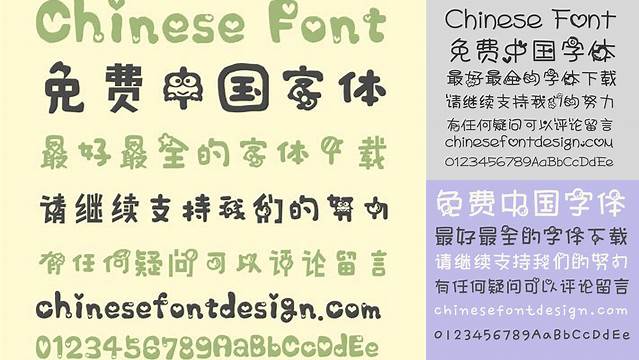
Cute Chinese Fonts For Instagram: Copy & Paste!
Hey guys! Want to spice up your Instagram with some super cute Chinese fonts? You've come to the right place! In this article, we're diving deep into the world of unique and adorable Chinese fonts that you can easily copy and paste to make your Insta posts stand out. We'll cover everything from where to find these fonts to how to use them effectively, and even some tips for creating the most eye-catching content. So, let's get started and turn your Instagram game up a notch!
What are Cute Chinese Fonts?
Cute Chinese fonts are stylized versions of Chinese characters (Hanzi) designed to be visually appealing and often incorporate playful or whimsical elements. They can range from rounded and bubbly designs to fonts that resemble hand-drawn calligraphy, making them perfect for adding a touch of personality to your Instagram posts. These fonts aren't just about aesthetics; they also bring a bit of cultural flair, making your content more engaging and unique. You might find fonts with added hearts, stars, or other decorative elements, truly setting them apart from standard text. When choosing a cute Chinese font, consider the overall theme of your Instagram profile and select fonts that complement your existing aesthetic. Using these fonts can help you create a cohesive and visually appealing brand identity that attracts more followers and boosts engagement. Whether you're posting about fashion, food, travel, or just your daily life, cute Chinese fonts can add that extra oomph to make your content pop!
Why Use Chinese Fonts on Instagram?
Using Chinese fonts on Instagram can seriously elevate your content. First off, it's a fantastic way to stand out from the crowd. With everyone using the same standard fonts, adding a touch of Chinese calligraphy or a cute Chinese font immediately catches the eye. It also adds an element of mystique and cultural richness, making your posts more intriguing. Plus, if you're targeting a specific audience that appreciates or is interested in Chinese culture, using these fonts can help you connect with them on a deeper level. Think about it: a beautifully crafted quote in a cute Chinese font can resonate much more than the same quote in Arial or Times New Roman. Furthermore, using Chinese fonts shows that you're creative and willing to experiment, which can boost your credibility and make your profile more memorable. Ultimately, incorporating Chinese fonts into your Instagram strategy can help you build a unique brand identity, attract a wider audience, and create content that truly stands out in the crowded digital space. It’s a win-win!
Where to Find Cute Chinese Fonts for Copy and Paste
Finding cute Chinese fonts for copy and paste is easier than you might think! There are several online resources where you can discover a wide range of stylish and adorable fonts. One of the best places to start is websites that offer font generators. These sites allow you to type in your text, choose from a variety of Chinese fonts, and then simply copy and paste the generated text into your Instagram post. Some popular font generator websites include LingoJam and FontGet. Additionally, you can explore online design communities and forums where users often share their favorite fonts and resources. Websites like Pinterest and Behance can also be great sources of inspiration, leading you to unique and cute Chinese fonts that you might not find elsewhere. Don't forget to check out social media platforms like WeChat and Weibo, where you might discover emerging Chinese fonts that are trending. Remember to always ensure that the fonts you use are free for commercial use if you plan to use them for business purposes. With a little bit of searching, you'll have a collection of cute Chinese fonts ready to make your Instagram posts shine!
Tips for Using Chinese Fonts Effectively
Using cute Chinese fonts effectively on Instagram requires a bit of strategy to ensure your content looks polished and professional. First and foremost, less is often more. Avoid overcrowding your posts with too much stylized text, as it can become overwhelming and difficult to read. Instead, use Chinese fonts sparingly to highlight key words or phrases. Consider the overall aesthetic of your Instagram profile and choose fonts that complement your existing style. For example, if you have a minimalist theme, opt for simple and elegant Chinese fonts. If your profile is more playful and vibrant, choose fonts with bolder and more whimsical designs. Pay attention to the readability of the font. While some Chinese fonts may look visually appealing, they might not be easy to read, especially on smaller screens. Always test your text on different devices to ensure it displays correctly. Also, be mindful of cultural context. Using Chinese fonts should be done respectfully and with an understanding of their cultural significance. Avoid using fonts in a way that could be misconstrued or offensive. By following these tips, you can use cute Chinese fonts to enhance your Instagram content and create a visually stunning and engaging profile.
Combining Chinese Fonts with Other Design Elements
To really make your Instagram posts pop, try combining cute Chinese fonts with other design elements. Think about adding graphics, stickers, and emojis that complement the font's style. For instance, if you're using a bubbly, rounded Chinese font, pair it with pastel-colored backgrounds and playful emojis. If you've chosen a more traditional calligraphy-style font, consider using vintage-inspired filters and elegant borders. Experiment with different color palettes to create visual harmony. Soft, muted tones can enhance the sophistication of your posts, while bright, bold colors can make your content more eye-catching. Don't be afraid to play around with layering text and images. You can place Chinese fonts over photos or create text-based graphics with transparent backgrounds. Just make sure the text remains legible and doesn't get lost in the background. Another great idea is to use whitespace effectively. Leaving some empty space around your text can make it stand out and give your posts a clean, uncluttered look. By thoughtfully combining cute Chinese fonts with other design elements, you can create visually stunning Instagram content that captures attention and reflects your unique style. It's all about finding the perfect balance and letting your creativity shine!
Common Mistakes to Avoid When Using Chinese Fonts
Using cute Chinese fonts on Instagram can be a fun way to add personality to your posts, but there are a few common mistakes you should avoid. First, don't overdo it! Using too many different fonts in a single post can make your content look cluttered and unprofessional. Stick to one or two Chinese fonts at most, and make sure they complement each other. Another mistake is choosing fonts that are difficult to read. While some Chinese fonts may look visually appealing, they might not be legible, especially on smaller screens. Always prioritize readability over aesthetics. Also, avoid using Chinese fonts that clash with your overall brand aesthetic. Your fonts should align with your brand's personality and style. If your brand is minimalist and modern, opt for clean and simple Chinese fonts. If your brand is more playful and whimsical, you can choose bolder and more decorative fonts. Be mindful of cultural appropriation. Using Chinese fonts without understanding their cultural significance can be offensive. Do your research and use the fonts respectfully. Finally, always test your posts on different devices to ensure the fonts display correctly. By avoiding these common mistakes, you can use cute Chinese fonts effectively and enhance your Instagram content without detracting from your brand's message.
Examples of Instagram Accounts Using Chinese Fonts Well
Looking for inspiration on how to use cute Chinese fonts effectively? Check out some Instagram accounts that are nailing it! One example is @ChineseCalligraphyArt, which showcases stunning Chinese calligraphy pieces with elegant and readable fonts. They use fonts that highlight the beauty of the artwork without overshadowing it. Another great account is @TrendyChineseFashion, which incorporates cute Chinese fonts into their captions and stories to add a touch of cultural flair. They often pair the fonts with relevant emojis and graphics, creating visually appealing content. @ChineseFoodAdventures is another account worth following. They use playful and vibrant Chinese fonts to showcase delicious food and create a fun and engaging atmosphere. These accounts demonstrate how to use Chinese fonts to enhance your content and connect with your audience. Pay attention to how they balance the fonts with other design elements and how they use the fonts to convey their brand's message. By studying these examples, you can learn how to incorporate cute Chinese fonts into your own Instagram strategy and create a unique and captivating profile. Remember, it's all about finding the right fonts and using them in a way that complements your content and resonates with your audience!
The Psychology Behind Font Choices
The fonts you choose can have a significant impact on how your audience perceives your message. Different fonts evoke different emotions and associations. For instance, elegant and serif fonts often convey a sense of sophistication and tradition, while sans-serif fonts tend to feel more modern and approachable. When it comes to cute Chinese fonts, the psychology behind font choices is just as important. Rounded and bubbly fonts can create a sense of playfulness and warmth, while more angular and stylized fonts might evoke feelings of edginess or creativity. Consider the emotions you want to elicit in your audience when selecting a font. If you want to create a sense of trust and reliability, opt for a more classic and readable font. If you want to stand out and grab attention, choose a bolder and more unique font. Think about your target audience and what types of fonts they are likely to respond to. Younger audiences might be more receptive to trendy and experimental fonts, while older audiences might prefer more traditional and conservative fonts. By understanding the psychology behind font choices, you can use cute Chinese fonts strategically to enhance your message and connect with your audience on a deeper level.
The Cultural Significance of Chinese Calligraphy
Chinese calligraphy is more than just writing; it's an art form with deep cultural significance. It's been practiced for thousands of years and is considered one of the highest forms of Chinese art. Calligraphy is closely tied to Chinese philosophy, literature, and history. Each stroke and character carries meaning and reflects the calligrapher's personality and emotions. The tools used in calligraphy, such as the brush, ink, and paper, are also highly valued and are often passed down through generations. When using cute Chinese fonts, it's important to be mindful of their cultural context. Avoid using fonts in a way that could be disrespectful or offensive. Do your research and learn about the history and meaning behind the fonts you choose. Consider incorporating elements of traditional calligraphy into your designs. You can add brushstroke effects or use fonts that resemble hand-drawn calligraphy. This can add a touch of authenticity and elegance to your Instagram content. By understanding the cultural significance of Chinese calligraphy, you can use cute Chinese fonts in a way that is both stylish and respectful.
How Fonts Impact Brand Identity
Fonts play a crucial role in shaping your brand identity. They are a visual representation of your brand's personality and values. The fonts you choose can convey a sense of professionalism, creativity, or playfulness. When it comes to cute Chinese fonts, they can add a unique and memorable element to your brand. Consider how you want your brand to be perceived. Do you want to be seen as modern and innovative, or traditional and sophisticated? Choose Chinese fonts that align with your brand's overall style and message. Use fonts consistently across all your marketing materials, including your Instagram profile, website, and business cards. This will help create a cohesive and recognizable brand identity. Pay attention to the readability of your fonts. While some Chinese fonts may look visually appealing, they might not be easy to read, especially on smaller screens. Always prioritize readability over aesthetics. Test your fonts on different devices and platforms to ensure they display correctly. By carefully selecting and using cute Chinese fonts, you can create a strong and memorable brand identity that resonates with your target audience.
Making Text Stand Out with Different Styles
Want to make your Instagram text pop? Experiment with different styles to capture attention and emphasize your message. Use bold text to highlight important words or phrases. This is a great way to draw the eye and make key points stand out. Italic text can add a touch of elegance or emphasis. Use it sparingly to avoid overdoing it. Consider using ALL CAPS to create a sense of urgency or excitement. However, be careful not to overuse it, as it can come across as shouting. Experiment with different font sizes to create visual hierarchy. Larger fonts can be used for headlines, while smaller fonts can be used for body text. When using cute Chinese fonts, try combining them with different styles to create a unique and eye-catching effect. For example, you can use a bold Chinese font for your headline and a regular font for your body text. You can also use italic text to emphasize certain words or phrases within your Chinese font text. Just make sure the styles you choose complement the font and don't clash with your overall design. By playing around with different styles, you can make your Instagram text more engaging and visually appealing.
Font Pairing Techniques for Instagram
Font pairing is the art of combining two or more fonts in a way that is visually harmonious and effective. When done well, font pairing can elevate your Instagram content and make it look more professional and polished. Start by choosing a dominant font that will be used for headlines or key text. Then, select a secondary font that complements the dominant font and can be used for body text or supporting text. Look for fonts that have contrasting styles but share a common characteristic, such as similar x-heights or stroke weights. When using cute Chinese fonts, consider pairing them with a simple and clean sans-serif font. This can help balance the ornate nature of the Chinese font and make it more readable. Avoid pairing two Chinese fonts together, as this can be overwhelming and difficult to read. Instead, use the Chinese font sparingly and pair it with a more neutral font. Experiment with different font sizes and weights to create visual hierarchy and make your text more engaging. By mastering font pairing techniques, you can create visually stunning Instagram content that captures attention and effectively communicates your message.
Creating a Cohesive Instagram Feed with Consistent Fonts
Consistency is key when it comes to creating a cohesive Instagram feed. Using the same fonts across all your posts can help create a unified and professional look. Start by choosing a set of fonts that align with your brand's personality and style. Stick to these fonts across all your Instagram content, including your captions, stories, and profile bio. When using cute Chinese fonts, be mindful of their readability. Choose fonts that are easy to read, even on smaller screens. Avoid using too many different fonts, as this can make your feed look cluttered and unprofessional. Stick to one or two Chinese fonts at most, and make sure they complement each other. Consider using a font pairing strategy to create visual harmony and make your text more engaging. Use the same font sizes and weights across all your posts to create a consistent visual hierarchy. This will help guide your audience's eye and make your content more readable. By maintaining consistent fonts throughout your Instagram feed, you can create a strong and recognizable brand presence that resonates with your audience.
Mobile Apps for Creating Text Graphics with Chinese Fonts
Creating eye-catching text graphics with cute Chinese fonts on your mobile device is easier than ever, thanks to a variety of user-friendly apps. One popular option is Canva, which offers a wide range of templates and design tools, including a selection of Chinese fonts. You can easily add text to your photos, customize the font size and color, and add other design elements to create stunning graphics. Another great app is Adobe Spark Post, which provides a variety of professionally designed templates and fonts, including some stylish Chinese fonts. You can also use the app to create animated text graphics and videos. For those who prefer a more minimalist approach, Over is a fantastic choice. It offers a clean and intuitive interface and a selection of elegant Chinese fonts. You can use Over to add text to your photos or create text-based graphics with transparent backgrounds. Another option is Phonto, a simple and straightforward app that focuses solely on text editing. It offers a wide range of fonts, including many cute Chinese fonts, and allows you to customize the font size, color, and style. By using these mobile apps, you can easily create professional-looking text graphics with Chinese fonts and elevate your Instagram content.
Using Emojis with Chinese Fonts for a Fun Effect
Emojis can add a playful and expressive touch to your Instagram content, and when paired with cute Chinese fonts, they can create a fun and eye-catching effect. Consider using emojis that complement the style of your Chinese font. For example, if you're using a bubbly and rounded font, pair it with cute and whimsical emojis like hearts, stars, and animals. If you're using a more traditional calligraphy-style font, consider using emojis that evoke a sense of elegance and culture, such as cherry blossoms, lanterns, or teacups. Use emojis sparingly to avoid cluttering your text. A few well-placed emojis can add personality and emphasis to your message without overwhelming the reader. Experiment with different emoji combinations to see what works best with your chosen Chinese font. You can use emojis to highlight key words or phrases, add context to your message, or simply add a touch of fun and whimsy. Be mindful of cultural differences when using emojis. Some emojis may have different meanings in different cultures, so it's important to use them appropriately. By using emojis thoughtfully and creatively, you can enhance your Instagram content and create a fun and engaging experience for your audience.
Advanced Text Design Techniques for Instagram
Ready to take your Instagram text design to the next level? Try experimenting with some advanced techniques to create visually stunning and unique content. One technique is to create text masks, where you use text to reveal an image or pattern underneath. This can be done using photo editing software like Photoshop or mobile apps like PicsArt. Another technique is to create 3D text effects, which can add depth and dimension to your designs. This can be achieved using 3D modeling software or online tools like Vectary. Consider experimenting with gradient colors for your text. Gradient colors can add a subtle and eye-catching effect to your designs. You can create gradient colors using photo editing software or online tools like Coolors. Another technique is to create drop shadows or outlines for your text. This can help your text stand out from the background and make it more readable. When using cute Chinese fonts, try combining them with these advanced techniques to create truly unique and captivating designs. For example, you can create a text mask using a Chinese font or add a 3D effect to your Chinese font text. By mastering these advanced techniques, you can create Instagram content that is both visually stunning and highly engaging.
The Future of Fonts on Social Media
The world of fonts on social media is constantly evolving, with new trends and technologies emerging all the time. In the future, we can expect to see even more innovative and creative ways to use fonts to enhance our online content. One trend that is likely to continue is the use of animated fonts. Animated fonts can add a dynamic and engaging element to your posts and stories. We can also expect to see more personalized and customized fonts. With the rise of AI and machine learning, it may be possible to create fonts that are tailored to your individual brand or style. Another trend to watch is the use of variable fonts. Variable fonts allow you to adjust various aspects of the font, such as weight, width, and slant, to create a wide range of styles from a single font file. This can be particularly useful for creating a consistent brand identity across different platforms and devices. When it comes to cute Chinese fonts, we can expect to see even more creative and innovative designs emerge. As interest in Chinese culture continues to grow, there will be a greater demand for stylish and authentic Chinese fonts. By staying up-to-date with the latest trends and technologies, you can ensure that your Instagram content remains fresh, engaging, and visually appealing.
How to Research Trends in Chinese Font Design
Staying on top of the latest trends in Chinese font design can help you keep your Instagram content fresh and relevant. One of the best ways to research trends is to follow designers and studios specializing in Chinese typography on social media platforms like Instagram, Behance, and Dribbble. These platforms are often the first to showcase new and innovative font designs. Another great resource is design blogs and publications that focus on Chinese art and culture. These publications often feature articles and interviews with leading Chinese font designers. Consider attending design conferences and workshops that focus on Chinese typography. These events can provide valuable insights into the latest trends and techniques. You can also explore online font libraries and marketplaces to see what new Chinese fonts are being released. Pay attention to the styles and aesthetics that are popular among Chinese designers and artists. Look for common themes, colors, and design elements. By actively researching trends in Chinese font design, you can ensure that your Instagram content remains cutting-edge and visually appealing.
Accessibility Considerations for Using Decorative Fonts
While cute Chinese fonts can add a unique and stylish touch to your Instagram content, it's important to consider accessibility when using decorative fonts. Accessibility refers to the practice of making your content usable and understandable by people with disabilities. One key consideration is readability. Decorative fonts, especially those with intricate or stylized designs, can be difficult to read, particularly for people with visual impairments or dyslexia. Always prioritize readability over aesthetics. Choose Chinese fonts that are easy to read, even on smaller screens. Avoid using too many decorative fonts in a single post, as this can make your content cluttered and overwhelming. Consider providing alternative text descriptions for images that contain decorative fonts. This will allow screen readers to convey the meaning of the text to people with visual impairments. Use sufficient contrast between your text and background colors to ensure that your text is easily visible. Avoid using low-contrast color combinations, such as light gray text on a white background. Test your content with accessibility tools to identify any potential issues. By considering accessibility when using cute Chinese fonts, you can ensure that your Instagram content is inclusive and accessible to everyone.
Legal Aspects of Using Free Fonts
When using free Chinese fonts on Instagram, it's crucial to understand the legal aspects to avoid copyright infringement or other legal issues. Free fonts are not always truly free. They often come with specific license agreements that dictate how you can use them. Always read the license agreement carefully before using a free font. Some free fonts may only be free for personal use, while others may be free for commercial use. Make sure you understand the terms of the license before using the font for any business-related purposes. Be aware of font foundries and designers that create and distribute Chinese fonts. They often have specific terms and conditions regarding the use of their fonts. If you're unsure about the legality of using a particular free font, it's always best to err on the side of caution and choose a different font. Consider purchasing a commercial license for a Chinese font if you plan to use it extensively for business purposes. This will give you the peace of mind knowing that you're using the font legally. Keep records of the fonts you use and their respective license agreements. This will help you keep track of your font usage and ensure that you're in compliance with the law. By understanding the legal aspects of using free fonts, you can protect yourself from potential legal issues and ensure that you're using Chinese fonts responsibly.
Monetizing Your Instagram with Unique Font Choices
Your Instagram feed can be a powerful tool for monetization, and using cute Chinese fonts strategically can help you stand out and attract a wider audience. If you're a designer or artist, you can showcase your unique font creations and offer them for sale. Create high-quality mockups of your fonts in use and promote them on your Instagram feed. You can also offer custom font design services to businesses or individuals. This can be a lucrative way to leverage your font design skills. If you're an influencer or blogger, you can use Chinese fonts to create visually appealing and engaging content that attracts sponsored opportunities. Brands are often looking for influencers who can create unique and eye-catching content that resonates with their target audience. Consider creating and selling digital products, such as Instagram templates or presets, that incorporate Chinese fonts. These products can be a great way to generate passive income. You can also offer font-related tutorials or workshops to your followers. This can help you build your authority and expertise in the field of Chinese typography. By monetizing your Instagram with unique font choices, you can turn your passion for Chinese fonts into a profitable venture.
The Importance of Testing Fonts Across Different Devices
Before finalizing your Instagram posts with cute Chinese fonts, it's crucial to test them across different devices to ensure they display correctly. Fonts can render differently on various operating systems (iOS, Android, Windows) and devices (smartphones, tablets, desktops). A font that looks perfect on your computer may appear distorted or illegible on someone else's phone. Test your fonts on a variety of devices and browsers to identify any compatibility issues. Pay attention to font size, spacing, and alignment. Make sure your text is readable and doesn't overlap with other elements. Check for any missing characters or glyphs. Some devices may not support certain Chinese characters, so it's important to ensure that all the characters in your text are displayed correctly. Consider using online font testing tools that allow you to preview your fonts on different devices and browsers. These tools can help you identify any potential issues before you publish your content. Ask friends or colleagues to view your posts on their devices and provide feedback. This can help you catch any issues that you may have missed. By testing your fonts across different devices, you can ensure that your Instagram content looks great for everyone, regardless of the device they're using.
Finding Inspiration from Traditional Chinese Art
Looking to add a touch of authenticity and elegance to your Instagram content? Draw inspiration from traditional Chinese art! Chinese art is rich in history and culture, and it can provide a wealth of inspiration for your font choices and design aesthetics. Explore Chinese paintings, calligraphy, and ceramics to discover unique patterns, colors, and design elements. Pay attention to the brushstrokes and techniques used in Chinese calligraphy. These can be incorporated into your font designs to add a touch of authenticity and artistry. Consider using colors that are commonly found in Chinese art, such as red, gold, and jade green. These colors can add a sense of richness and vibrancy to your designs. Incorporate traditional Chinese motifs, such as dragons, phoenixes, and bamboo, into your Instagram graphics. These motifs can add a touch of cultural significance to your content. Visit museums and galleries that showcase Chinese art to immerse yourself in the culture and gain inspiration. Read books and articles about Chinese art and history to deepen your understanding and appreciation. By finding inspiration from traditional Chinese art, you can create Instagram content that is both visually stunning and culturally meaningful.
Optimizing Your Instagram Bio with Unique Fonts
Your Instagram bio is prime real estate for making a first impression, and using unique fonts can help you stand out from the crowd. Consider using a cute Chinese font to highlight your name or brand name. This can add a touch of personality and memorability to your bio. Use keywords that are relevant to your brand or niche. This will help people find you when they search on Instagram. Include a clear and concise description of what you do or what your brand is about. Make it easy for people to understand your purpose and value proposition. Add a call to action, such as "Follow me" or "Visit my website." This will encourage people to take the next step and engage with your content. Use emojis to add a touch of personality and visual interest to your bio. However, be careful not to overuse them, as this can make your bio look cluttered. Test different font combinations and bio layouts to see what works best for your brand. Pay attention to readability and visual appeal. By optimizing your Instagram bio with unique fonts and strategic content, you can make a lasting impression and attract more followers.
Creating Engaging Instagram Stories with Animated Text
Instagram Stories are a fantastic way to connect with your audience in a more personal and engaging way, and animated text can take your stories to the next level. Use animated text to highlight key messages or announcements. This will help draw your audience's attention and make your stories more memorable. Experiment with different animation styles, such as fade-in, slide-in, or bounce. Choose animations that complement the style of your cute Chinese fonts and the overall tone of your story. Use animated text to create a sense of movement and energy in your stories. This can help keep your audience engaged and entertained. Consider using animated text to tell a story or create a narrative. This can be a great way to capture your audience's attention and build a deeper connection with them. Use apps like HypeType or Mojo to easily create animated text graphics for your Instagram Stories. These apps offer a variety of pre-designed templates and animations that you can customize with your own text and fonts. By creating engaging Instagram Stories with animated text, you can capture your audience's attention, communicate your message effectively, and build a stronger connection with your followers.
Running Contests and Giveaways with Eye-Catching Typography
Contests and giveaways are a great way to boost engagement on Instagram, and using eye-catching typography can help you attract even more participants. Use a bold and visually appealing cute Chinese font to announce your contest or giveaway. This will help your post stand out in the crowded Instagram feed. Clearly state the rules and requirements for participation. Make it easy for people to understand how to enter your contest or giveaway. Offer valuable prizes that are relevant to your target audience. This will incentivize people to participate. Use a visually appealing graphic to showcase the prizes. This will help generate excitement and anticipation. Consider using a custom hashtag for your contest or giveaway. This will make it easier to track entries and promote your contest. Promote your contest or giveaway across your other social media channels. This will help reach a wider audience. By running contests and giveaways with eye-catching typography, you can boost engagement, attract new followers, and build a stronger community on Instagram.
Building a Stronger Community Through Visual Communication
Visual communication is a powerful tool for building a stronger community on Instagram. By using cute Chinese fonts and other design elements effectively, you can create content that resonates with your audience and fosters a sense of connection. Use visuals to tell stories and share your brand's values. This will help people connect with you on a deeper level. Create content that is authentic and genuine. People are more likely to connect with brands and individuals that are real and transparent. Encourage your followers to interact with your content by asking questions and prompting discussions. This will help foster a sense of community and belonging. Respond to comments and messages promptly and thoughtfully. This will show your followers that you value their input and appreciate their engagement. Create content that is visually appealing and easy to consume. This will make it more likely that people will engage with your posts. Use cute Chinese fonts and other design elements to create a unique and memorable brand identity. This will help you stand out from the crowd and attract a loyal following. By building a stronger community through visual communication, you can create a thriving and engaged audience on Instagram.
Staying Inspired and Avoiding Creative Burnout
Creative burnout is a common challenge for content creators, but there are several strategies you can use to stay inspired and avoid feeling overwhelmed. Take breaks regularly to recharge your creative batteries. Step away from your work and do something you enjoy, such as spending time in nature, reading a book, or listening to music. Seek inspiration from other sources, such as art, music, literature, and nature. This can help spark new ideas and perspectives. Experiment with different styles and techniques. Trying something new can help you break out of a creative rut and discover new possibilities. Collaborate with other creators. Working with others can provide fresh perspectives and help you overcome creative blocks. Set realistic goals and deadlines. Avoid overcommitting yourself and spreading yourself too thin. Practice self-care and prioritize your well-being. This includes getting enough sleep, eating healthy, and exercising regularly. By staying inspired and avoiding creative burnout, you can sustain your passion for creating and continue to produce high-quality content for your Instagram audience. Remember to find joy in the process and celebrate your accomplishments along the way. Keep experimenting with cute Chinese fonts and various design elements to keep your content fun and engaging!